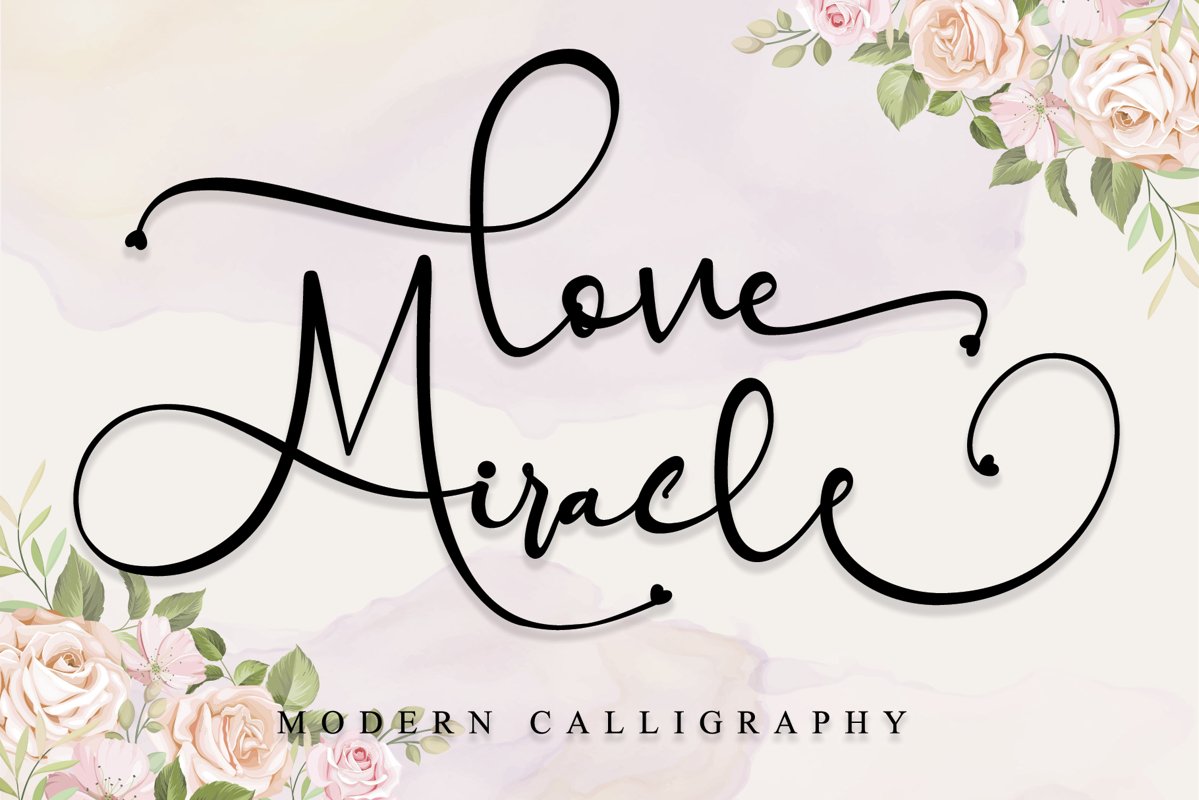
Love Miracle is a beautiful light handwritten font with a unique feel and looks stunning. It will add a luxury spark to any design project! This font is PUA encoded which means you can access all of the amazing glyphs and swashes with ease! It also features a wealth of special features including alternate glyphs and ligatures.
Love Miracle